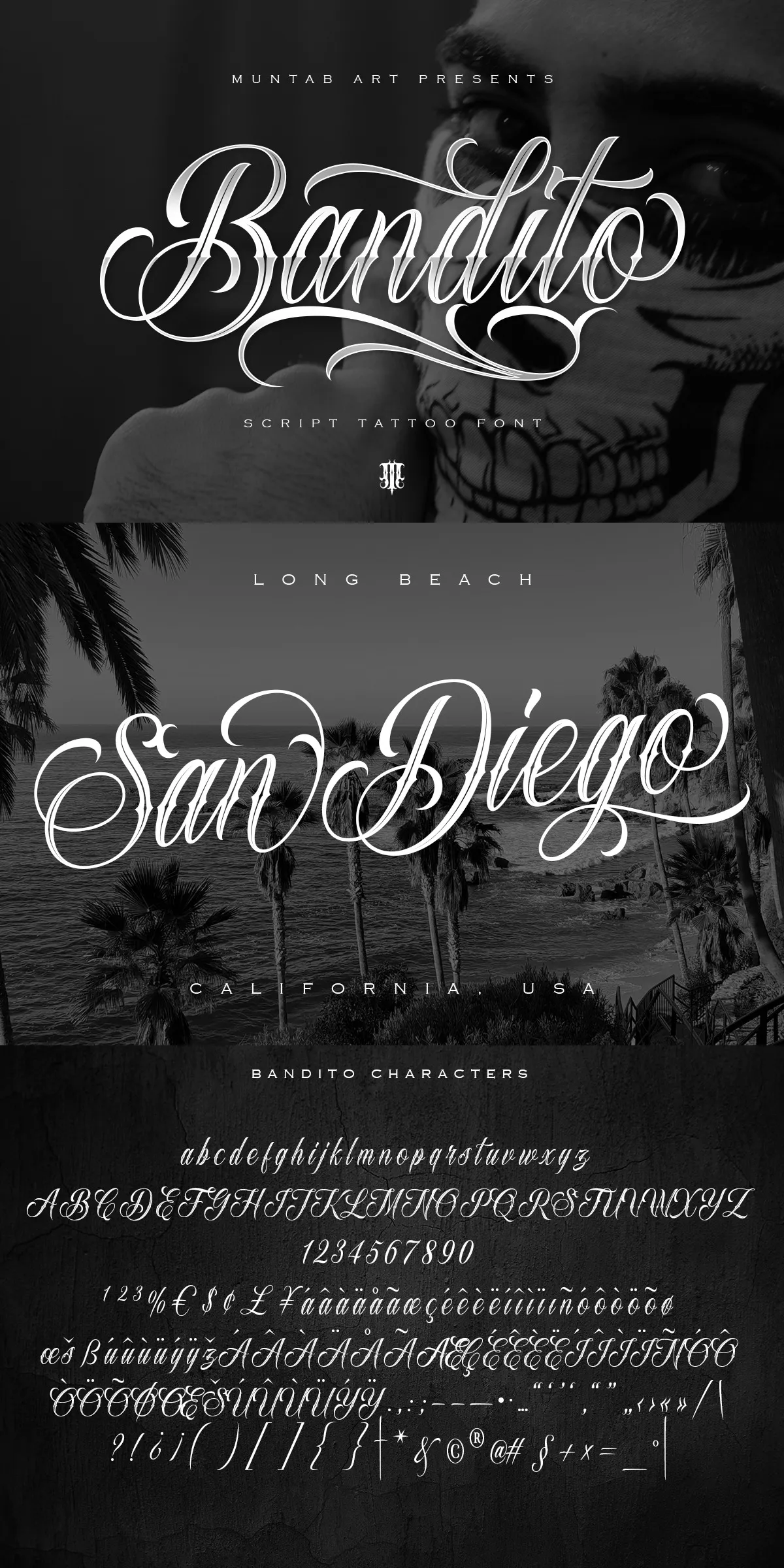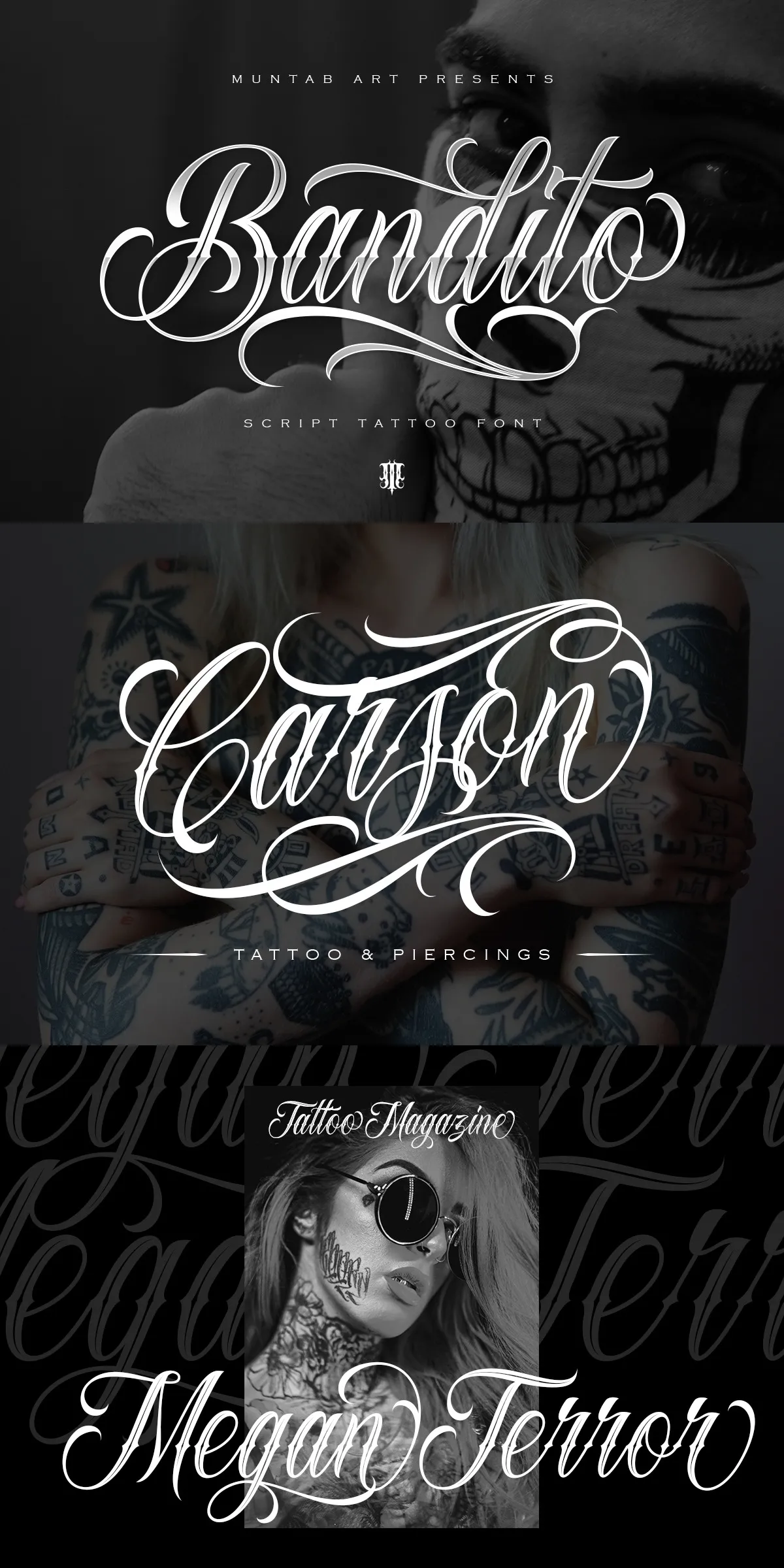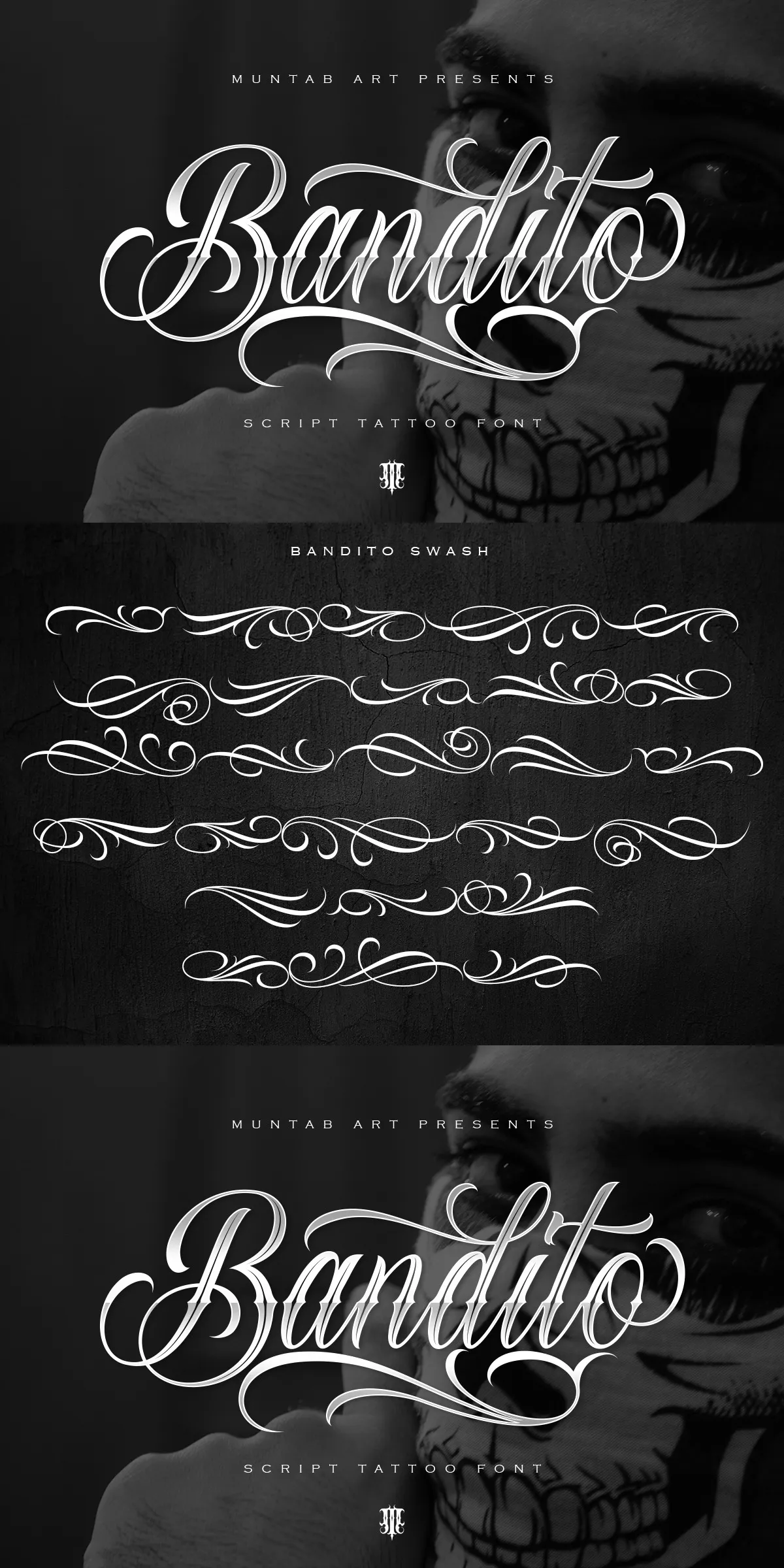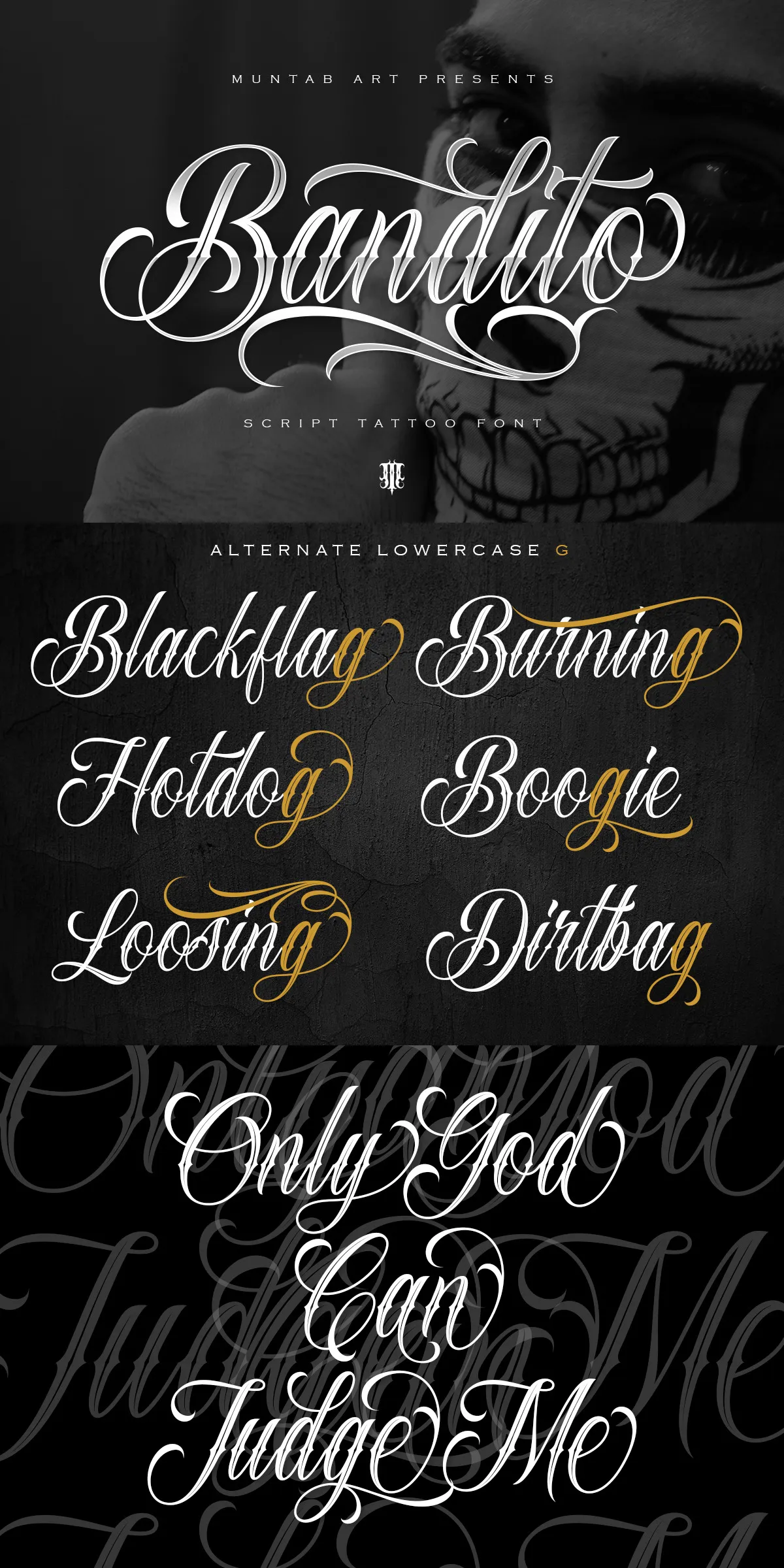
Bandito Script | Tattoo font
Introducing Bandito Font — a striking and expressive script typeface crafted for designers who demand both elegance and character. With its flowing lines, dramatic swashes, and rich typographic details, Bandito transforms ordinary text into captivating visual storytelling. Whether you’re designing luxury branding, high-end invitations, or premium packaging, this font delivers a bold, confident presence that commands attention and leaves a lasting impression.
Expressive Design, Unmatched Detail
Bandito was designed with the modern creative in mind — a font that bridges classic calligraphic beauty with contemporary design needs. Its fluid uppercase and lowercase forms are enhanced with **ending swashes**, subtle flourishes, and artistic alternates, giving every letter a sense of motion and personality. This isn’t simply a script font — it’s a dynamic tool that allows you to infuse emotion and rhythm into your typography. Use it to craft headlines that speak with confidence, signatures that feel authentic, and messages that resonate deeply with your audience.
Powerful Features for Professional Design Work
Bandito is more than just beautiful — it’s built for workflow efficiency and creative flexibility. Here’s what makes it a must-have in your design toolkit:
• Uppercase & Lowercase letters with smooth, connected strokes for natural flow
• Extended punctuation including special characters and decorative marks for polished layouts
• Comprehensive numerals with proportional and lining variants for precise typographic control
• Advanced OpenType features including ligatures, swash alternates, and contextual alternates
• Multilingual support for international use — perfect for global branding and multilingual content
Designed for Every Creative Project
Bandito shines in applications where elegance, luxury, and personality matter most. It’s ideal for:
• Wedding invitations, save-the-dates, and event suites — elevate your couple’s story with a handwritten feel
• Branding and logos — create a memorable identity with a touch of refined sophistication
• Packaging and labels — add allure to cosmetics, wines, chocolates, and boutique products
• Book covers and editorial design — bring literary flair to romance, lifestyle, and fashion titles
• Business cards and letterheads — stand out with a personalized, professional touch
• Social media graphics and digital ads — create scroll-stopping visuals with expressive typography
Whether you’re working on print, web, or multimedia projects, Bandito adapts perfectly — with crisp rendering, consistent spacing, and flawless performance.
Bring Your Vision to Life with Bandito Font
Don’t settle for generic fonts that blend into the background. With Bandito, every letter tells a story. Its expressive style, rich character set, and professional features make it the ultimate choice for designers who want to create work with soul, style, and unmistakable character. It’s not just a font — it’s your creative partner in crafting something truly special.